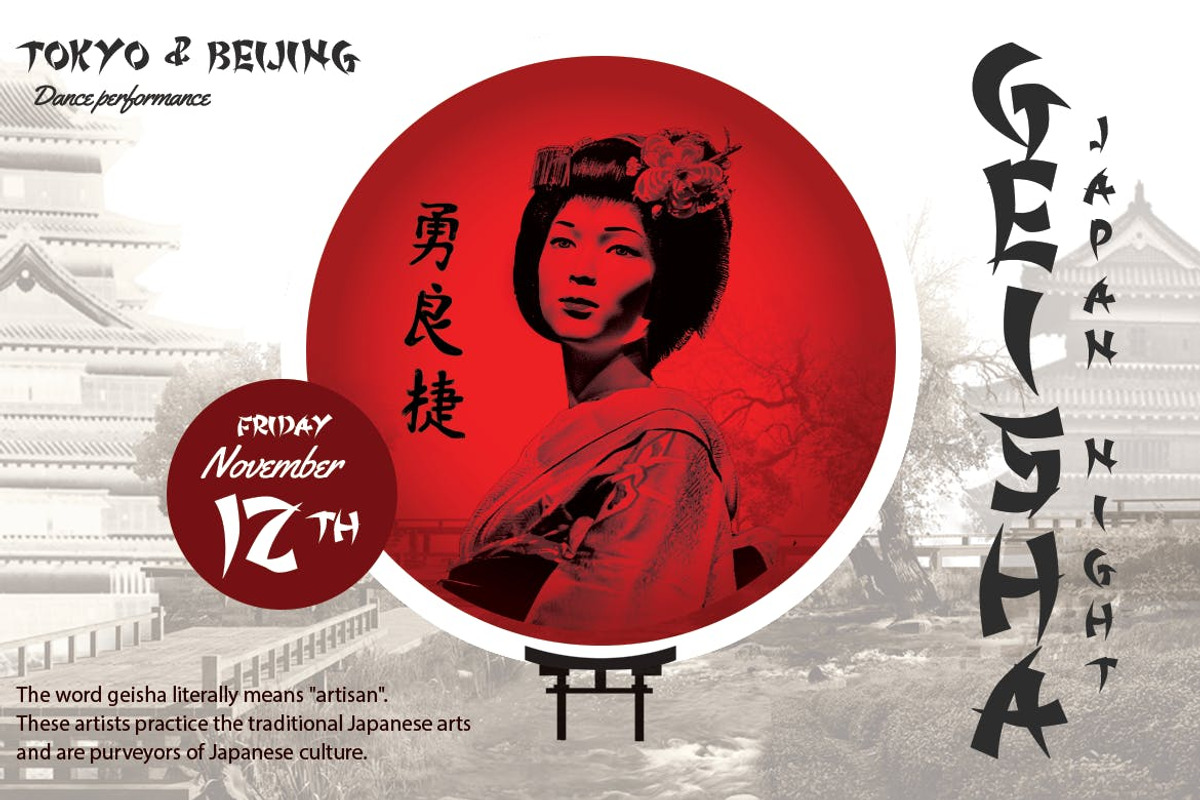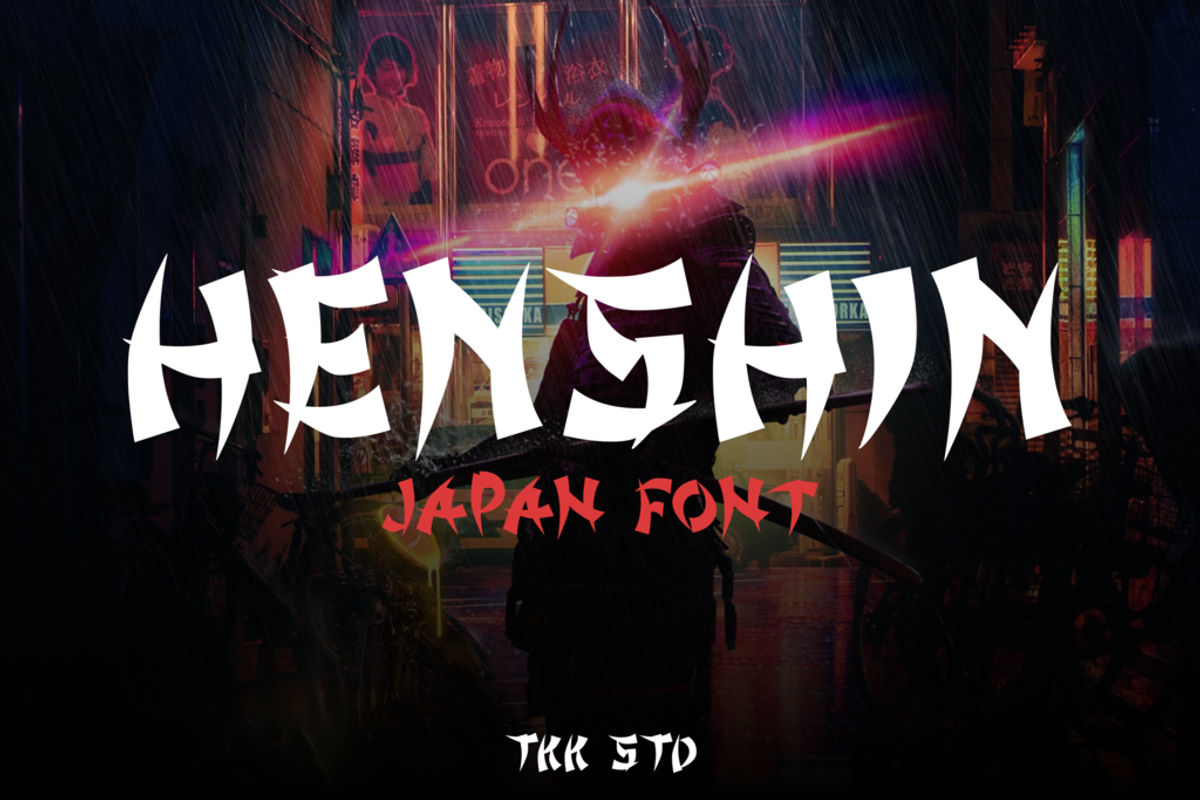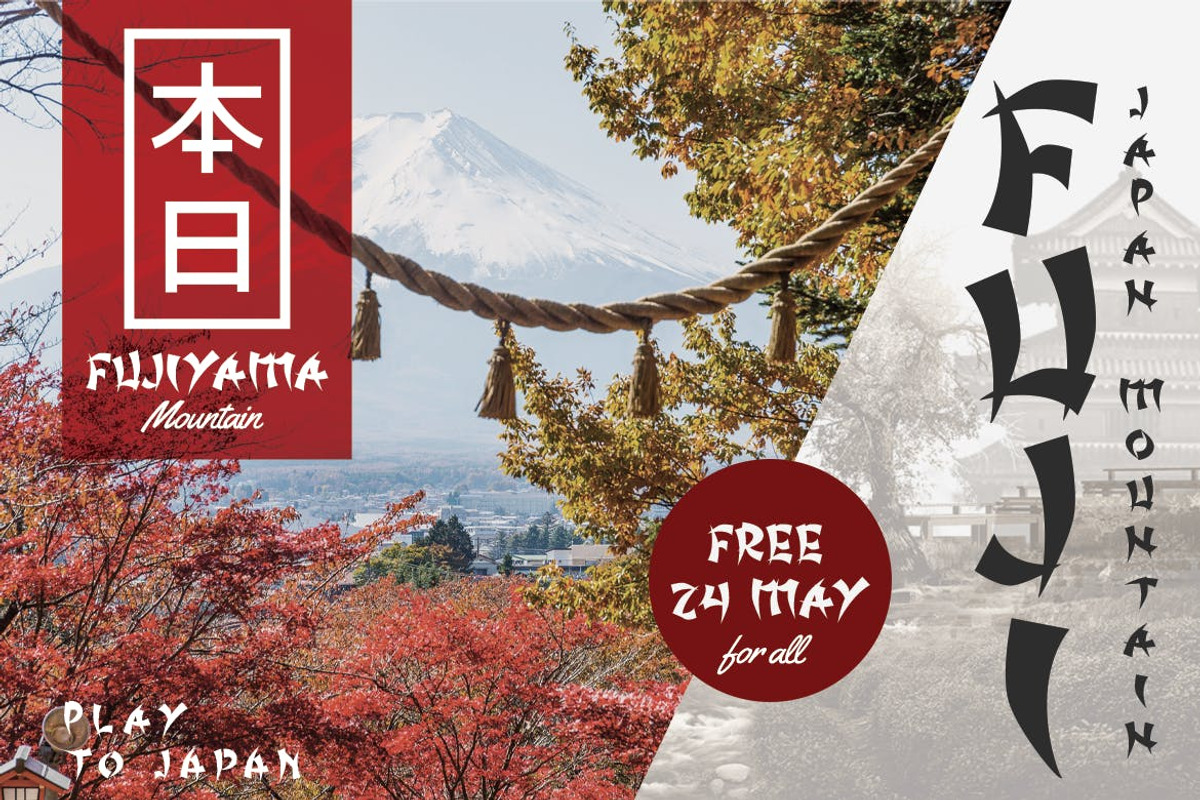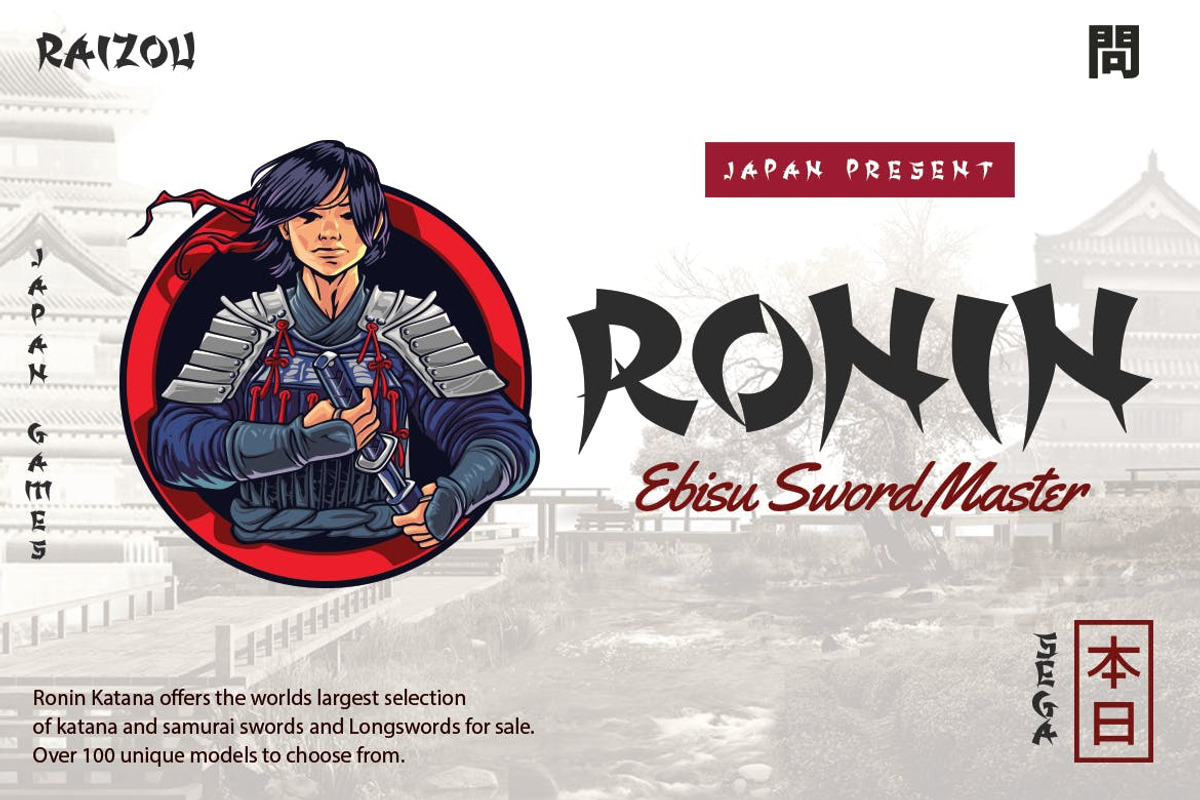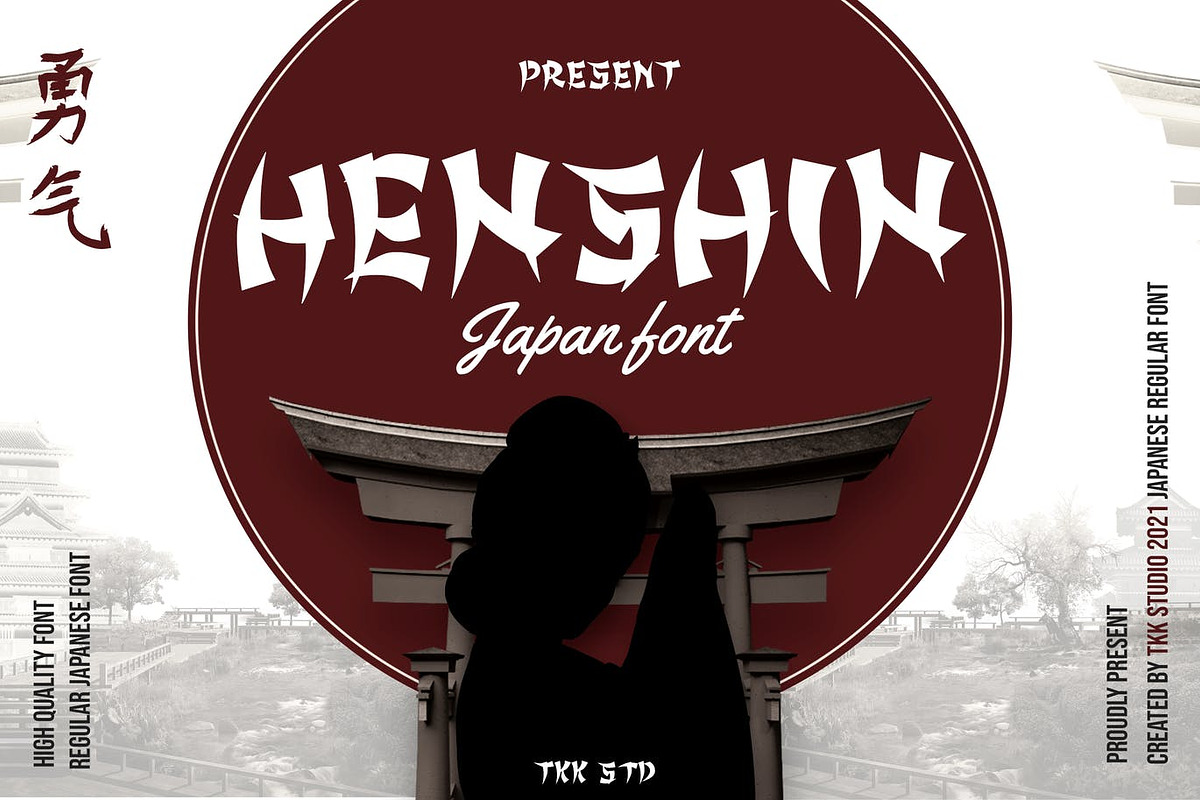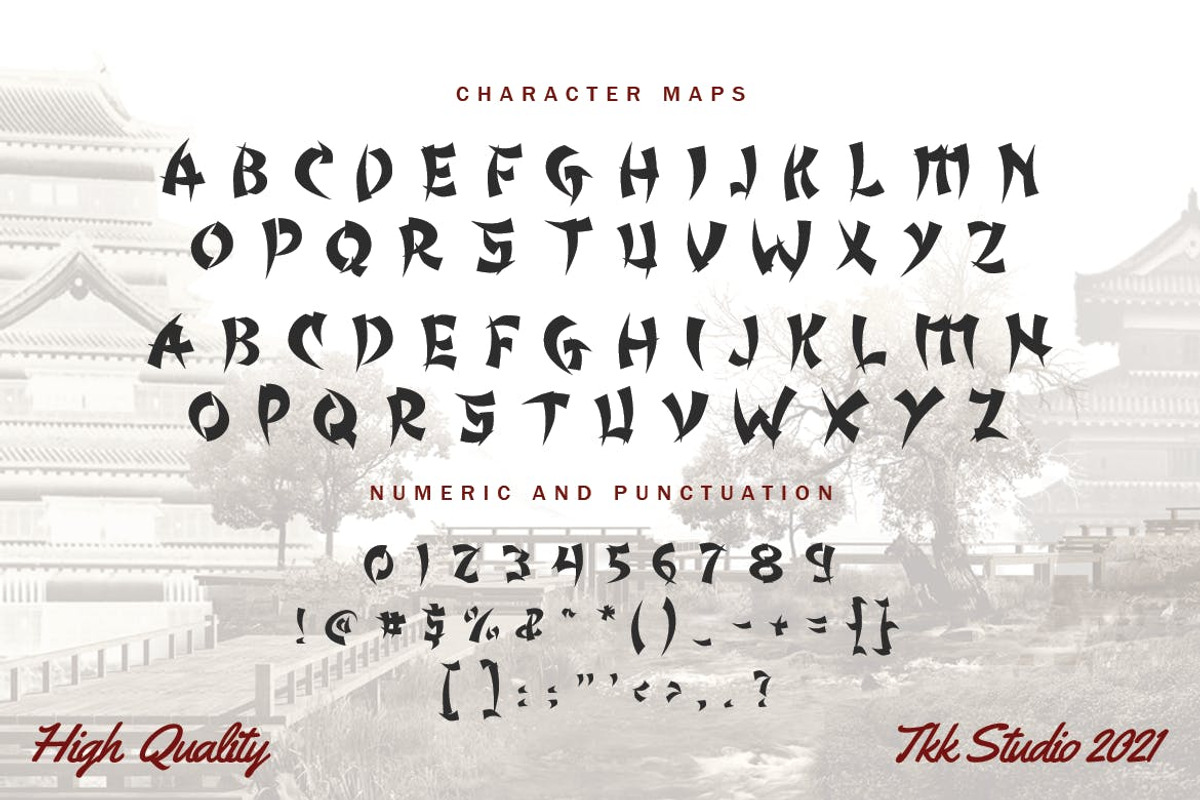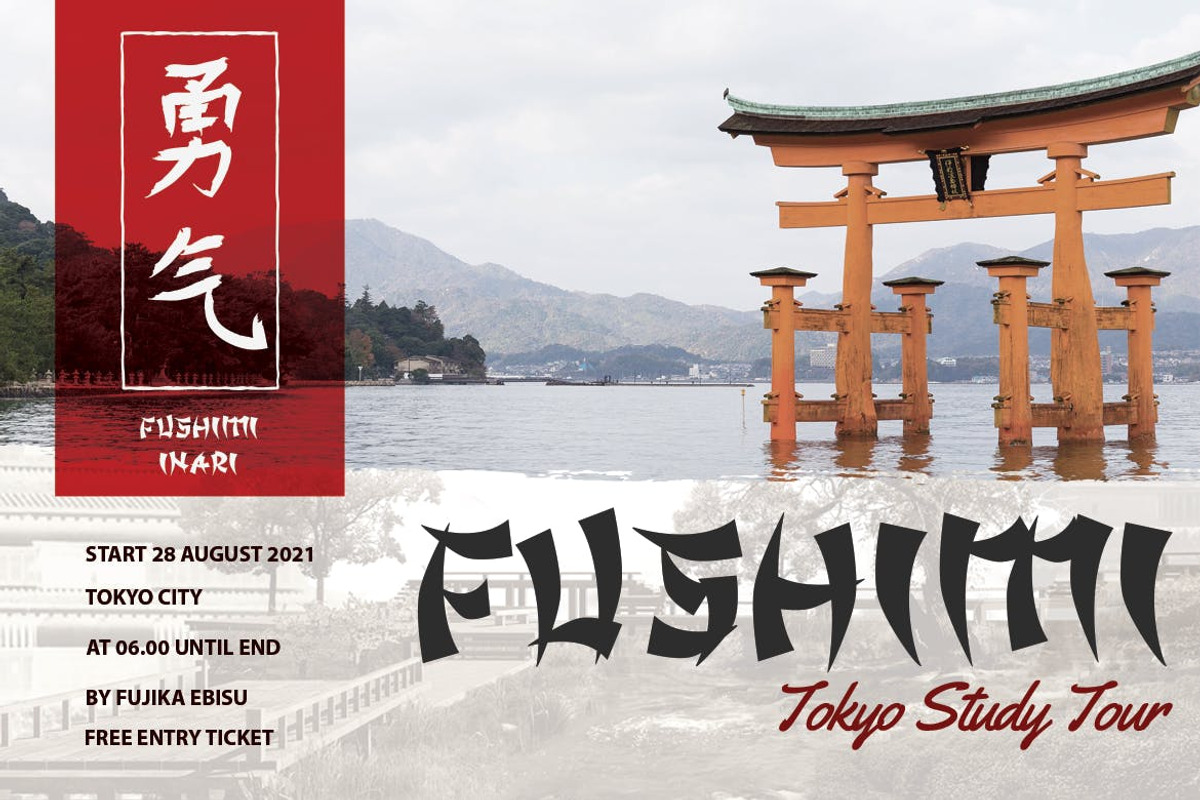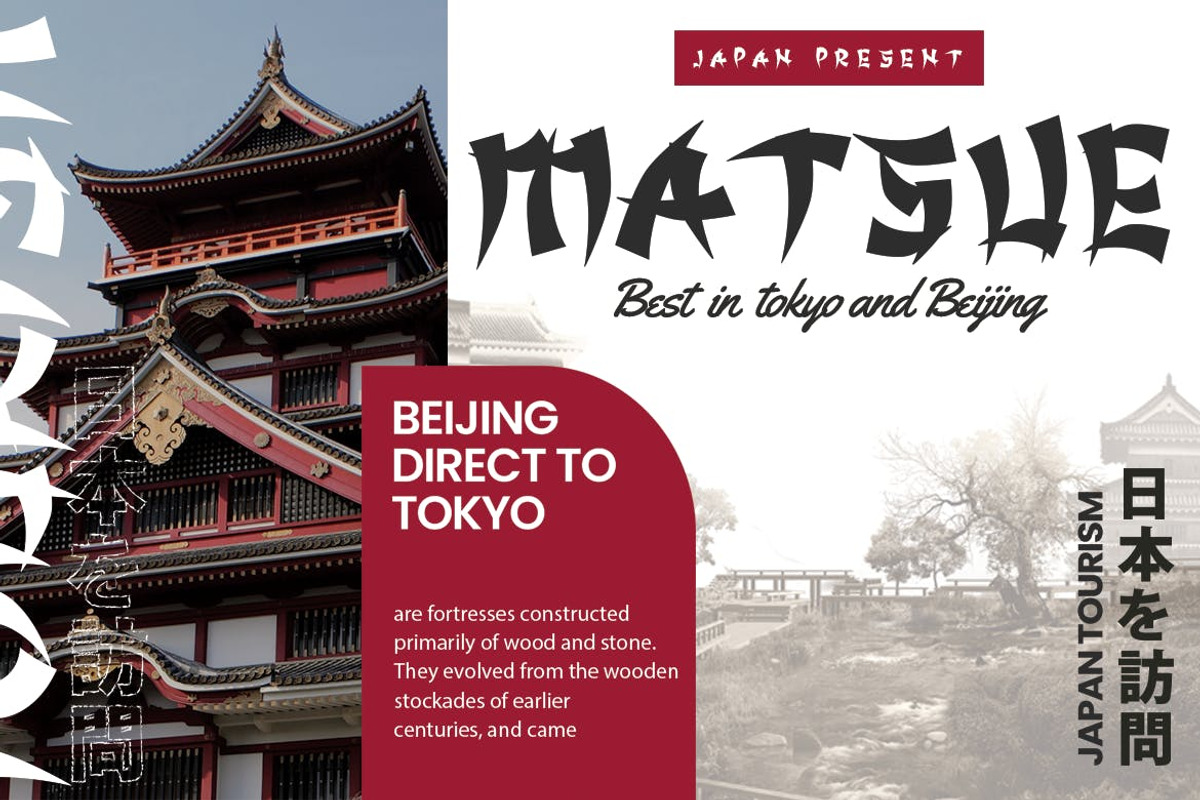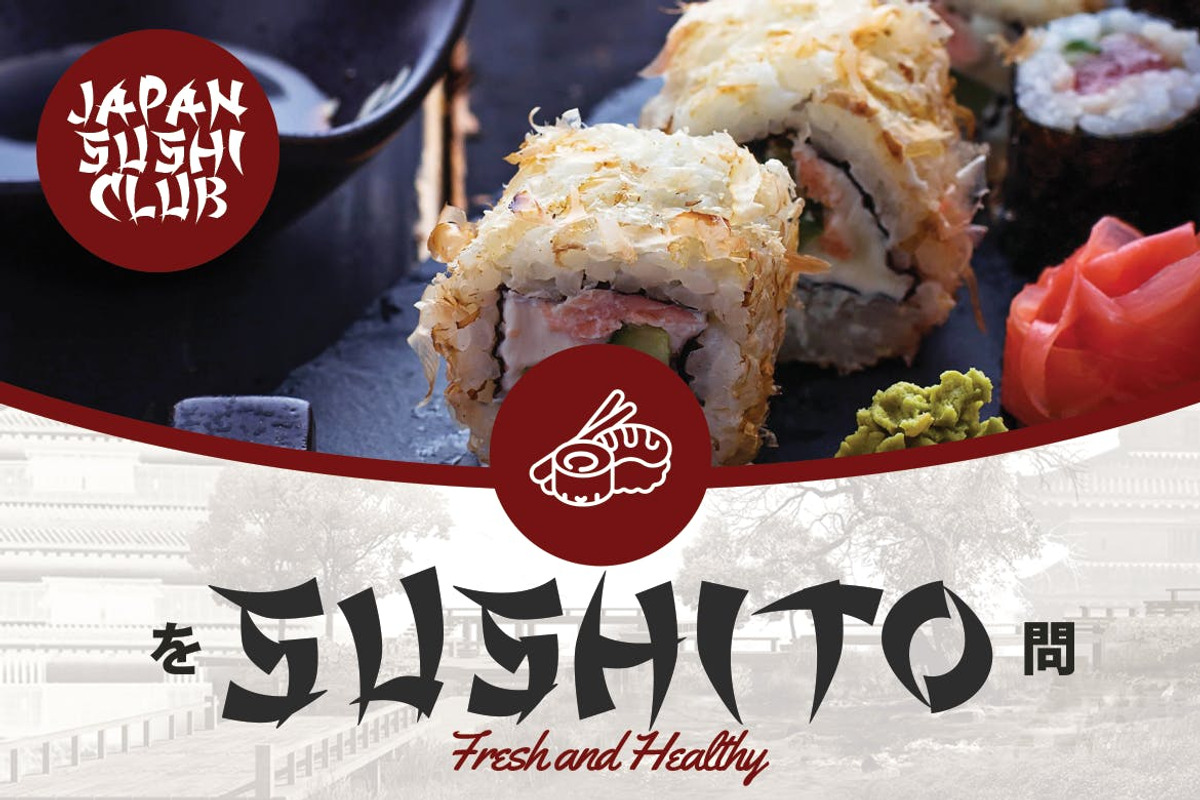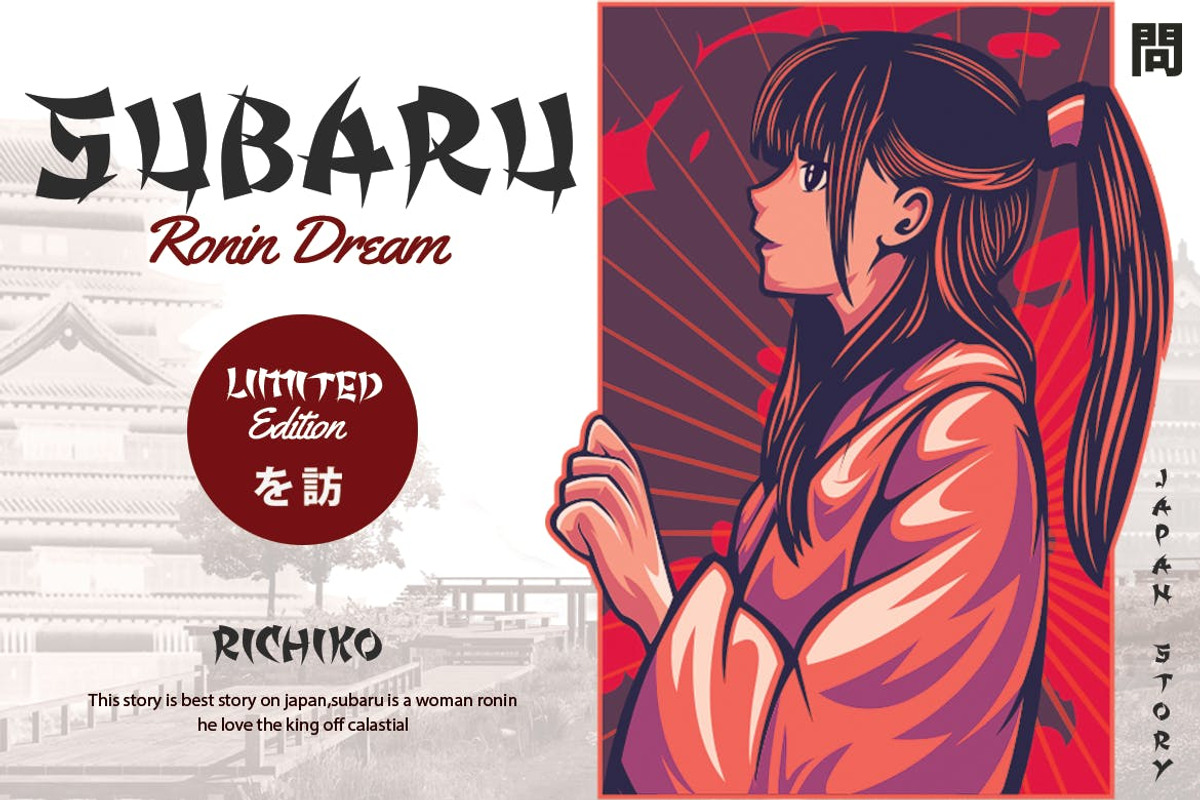
HENSHIN - Japanese Font
HENSHIN Japanese font took katakana shape, and take it to the modern fast world. With cut out on the inner connection, emphasize the fast and full action world we’re facing.
Suit perfectly for Online Games, poster, movie title, fast food menu, magazine, youtube covers, youtube thumbnails, social media page covers and so on… Happy designing.